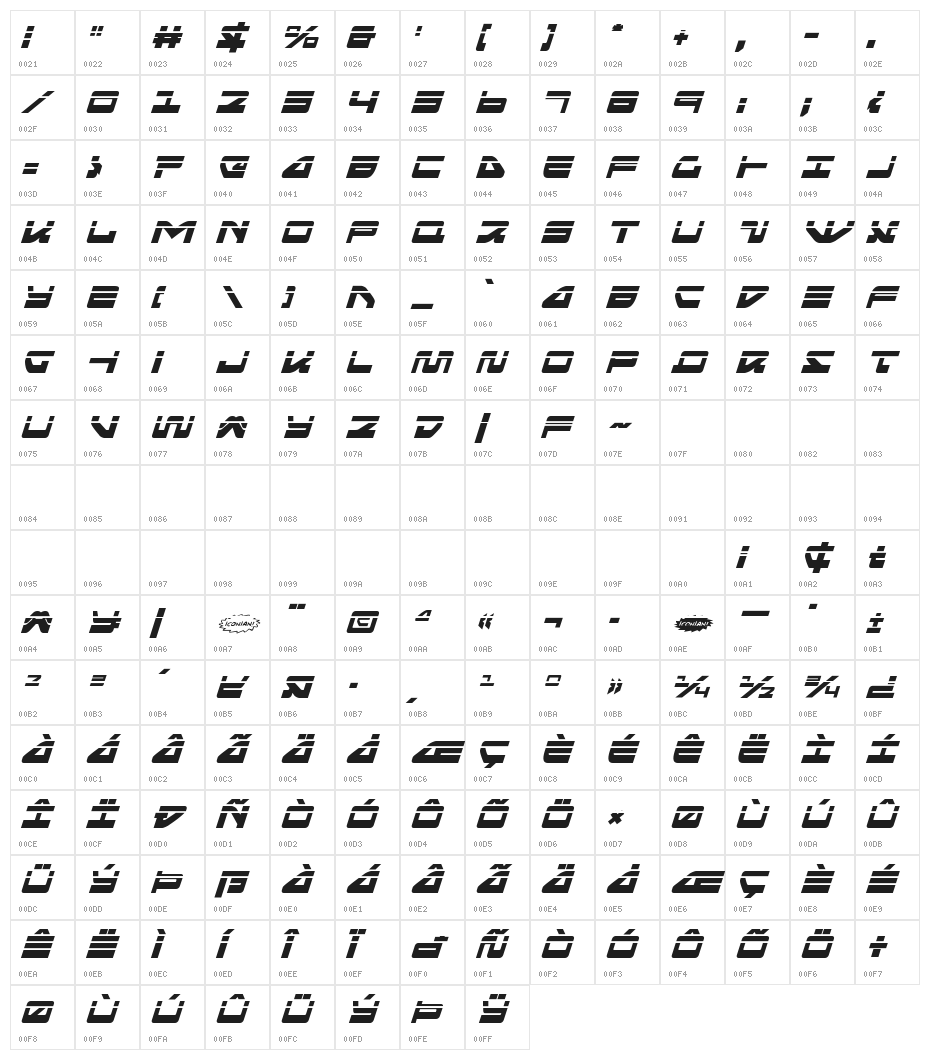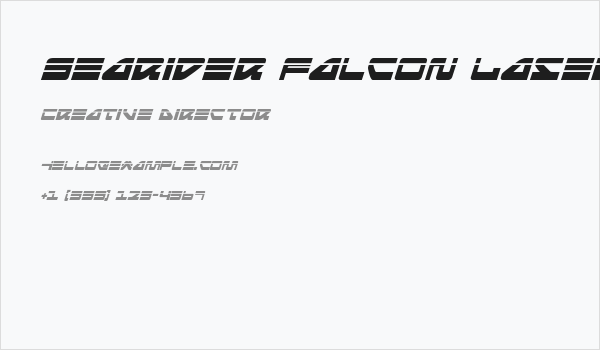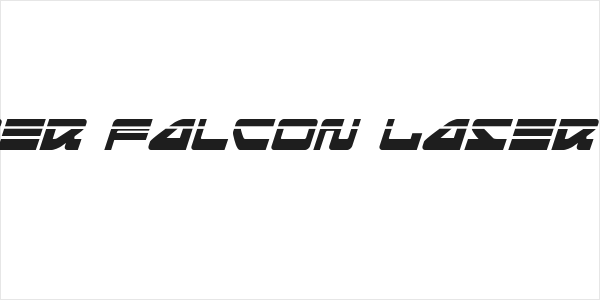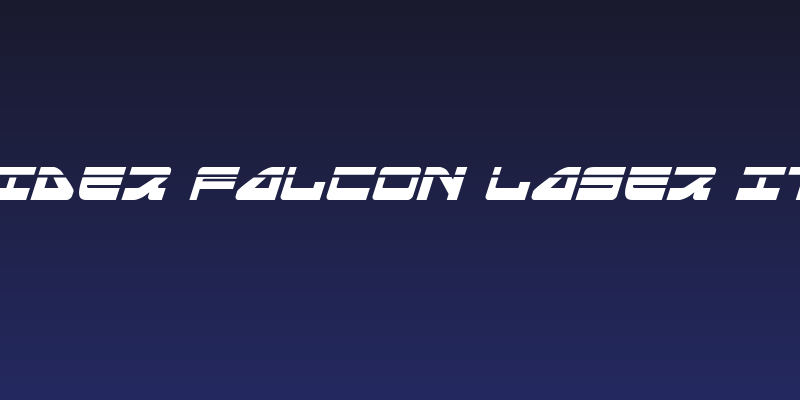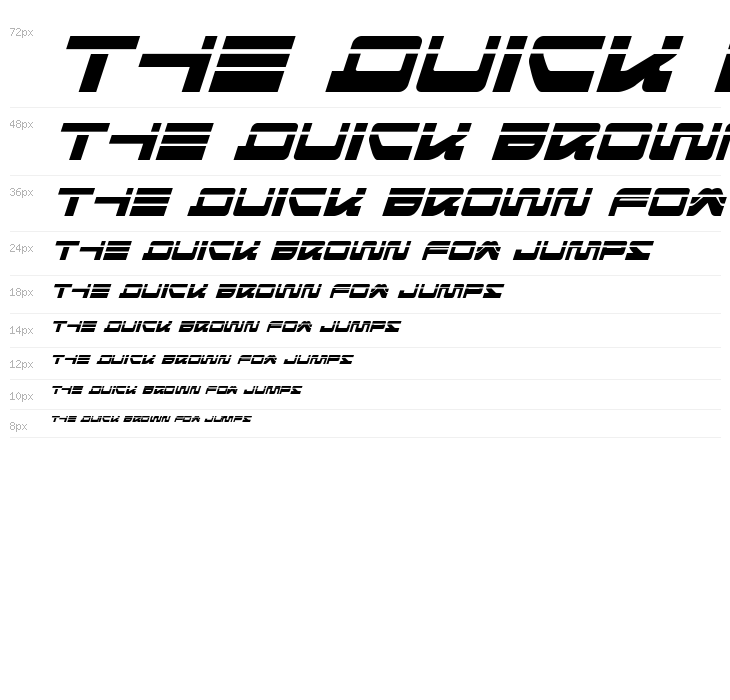
Searider Falcon Laser Italic Font
Searider Falcon Laser Italic Description
This font features a futuristic and angular design, characterized by sharp edges and a dynamic slant that gives it a sense of motion and speed. The geometric shapes and bold lines create a striking visual impact, making it ideal for attention-grabbing designs. The uppercase and lowercase letters maintain a consistent style, with uniform stroke thickness and a sleek, modern appearance. The numerals and special characters are designed to complement the overall aesthetic, ensuring a cohesive look across all text elements. Its unique style is well-suited for projects that require a modern and edgy feel.
| Proposed Projects | Ideal for sci-fi themed designs, video game graphics, tech branding, and futuristic posters. |